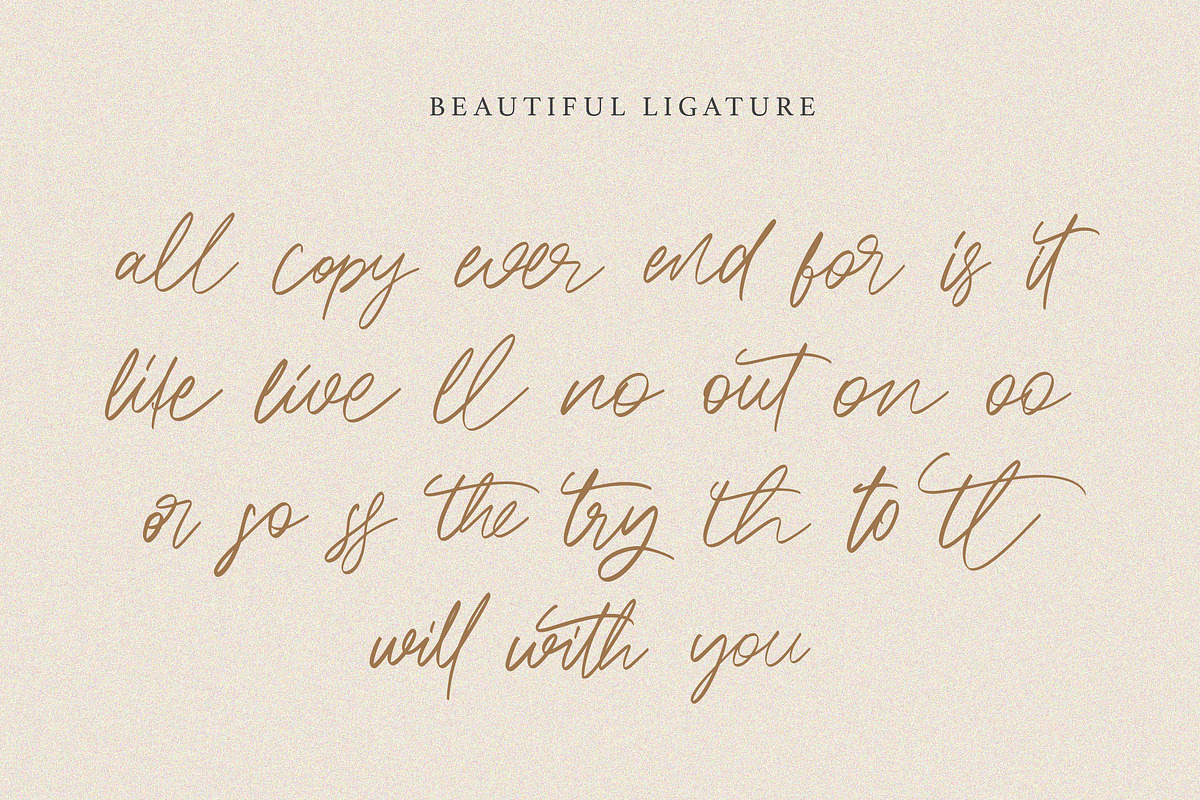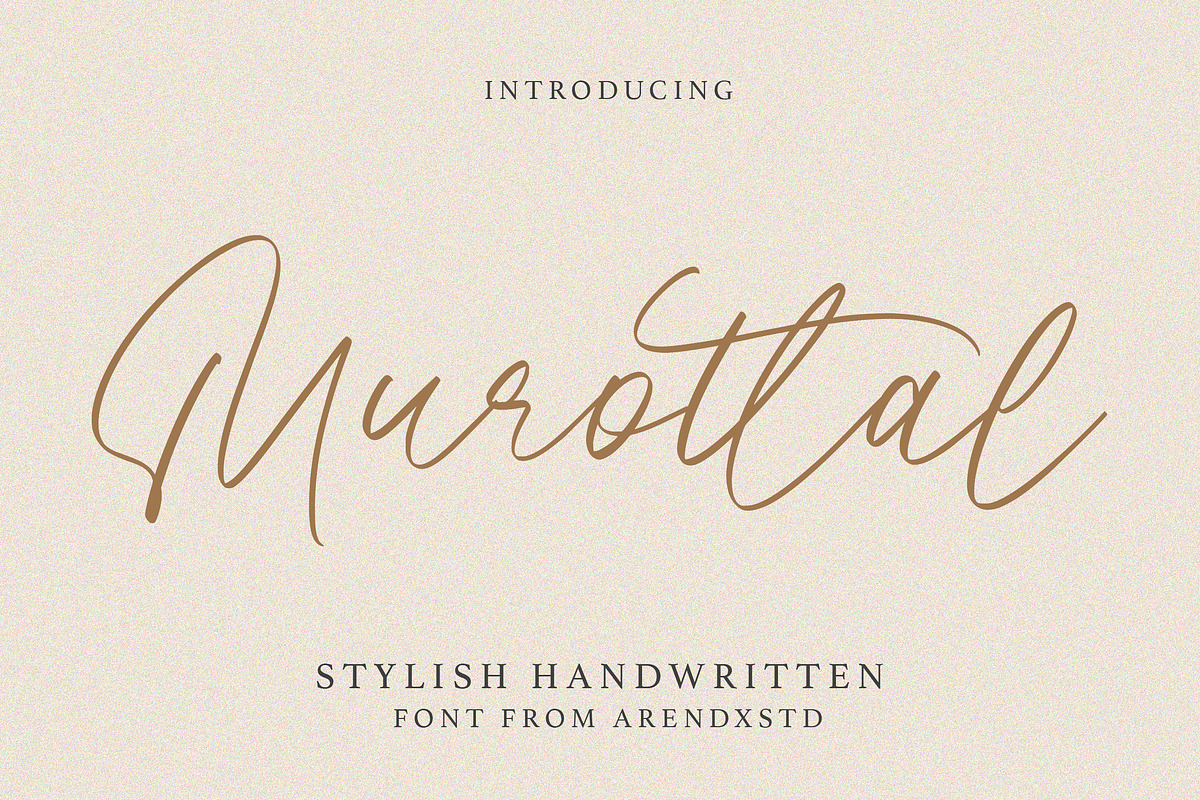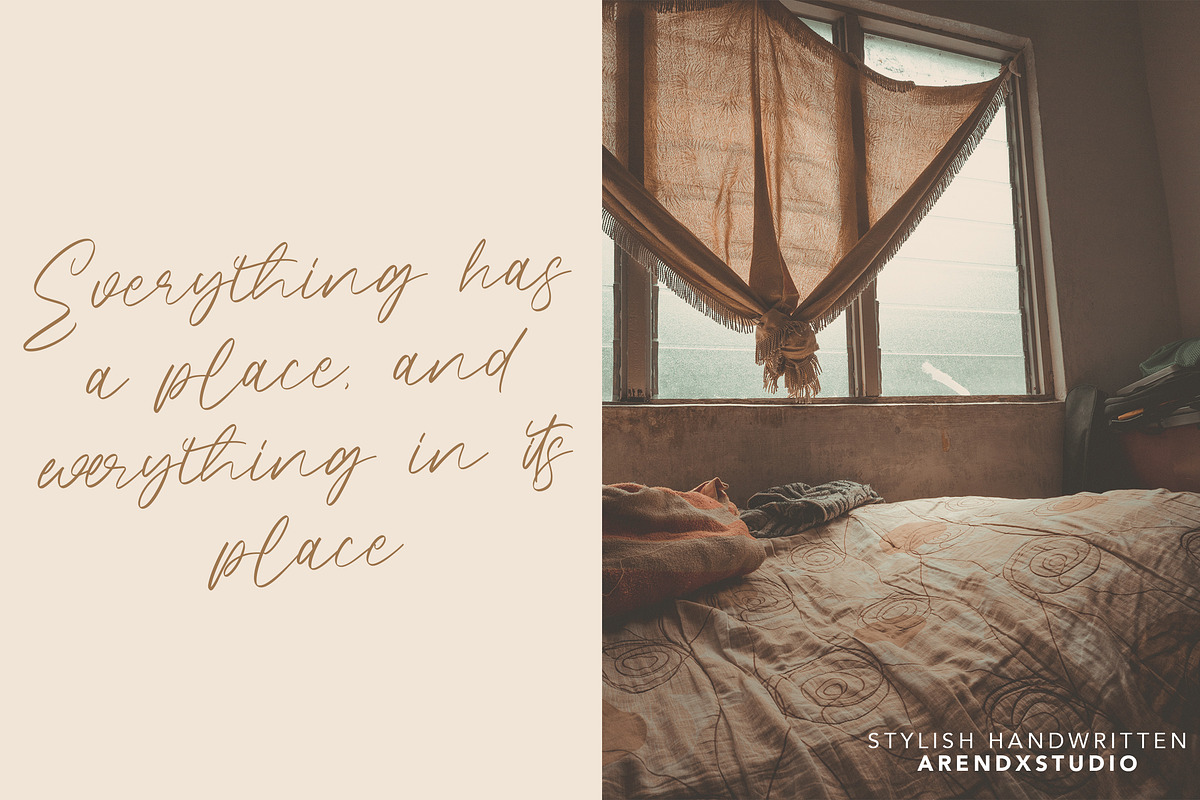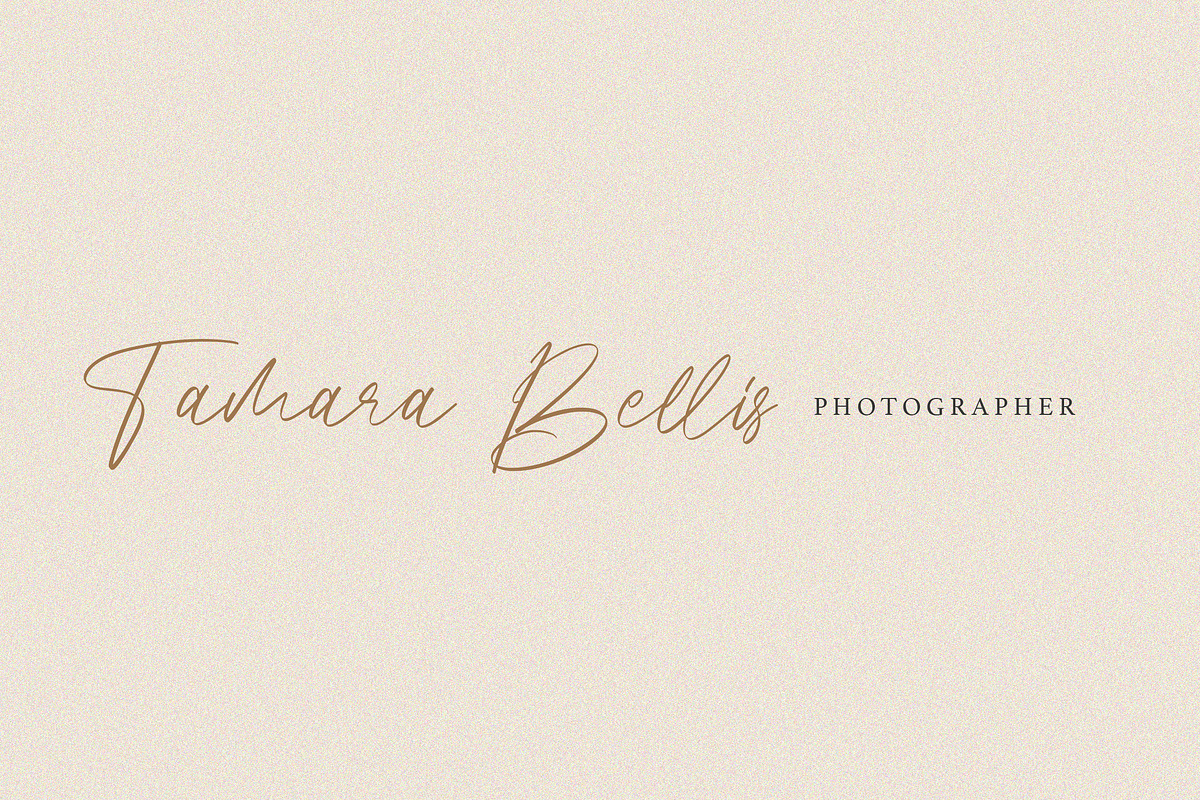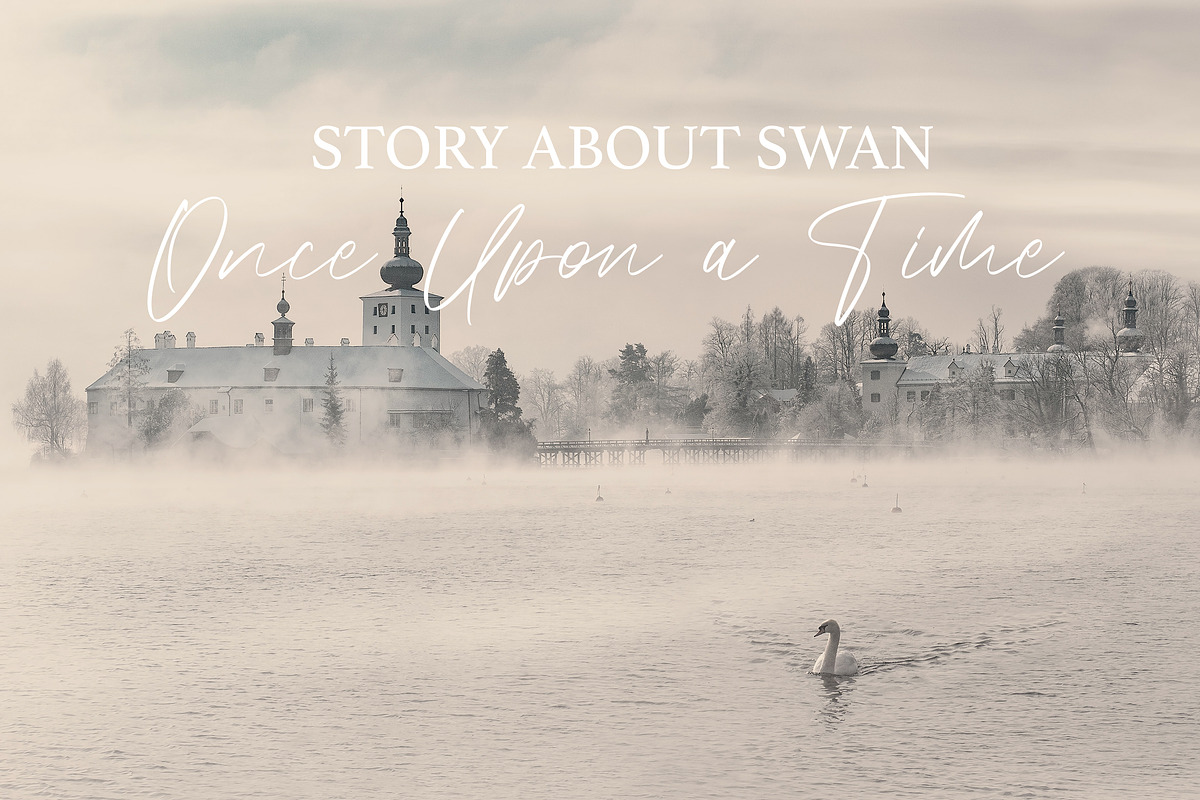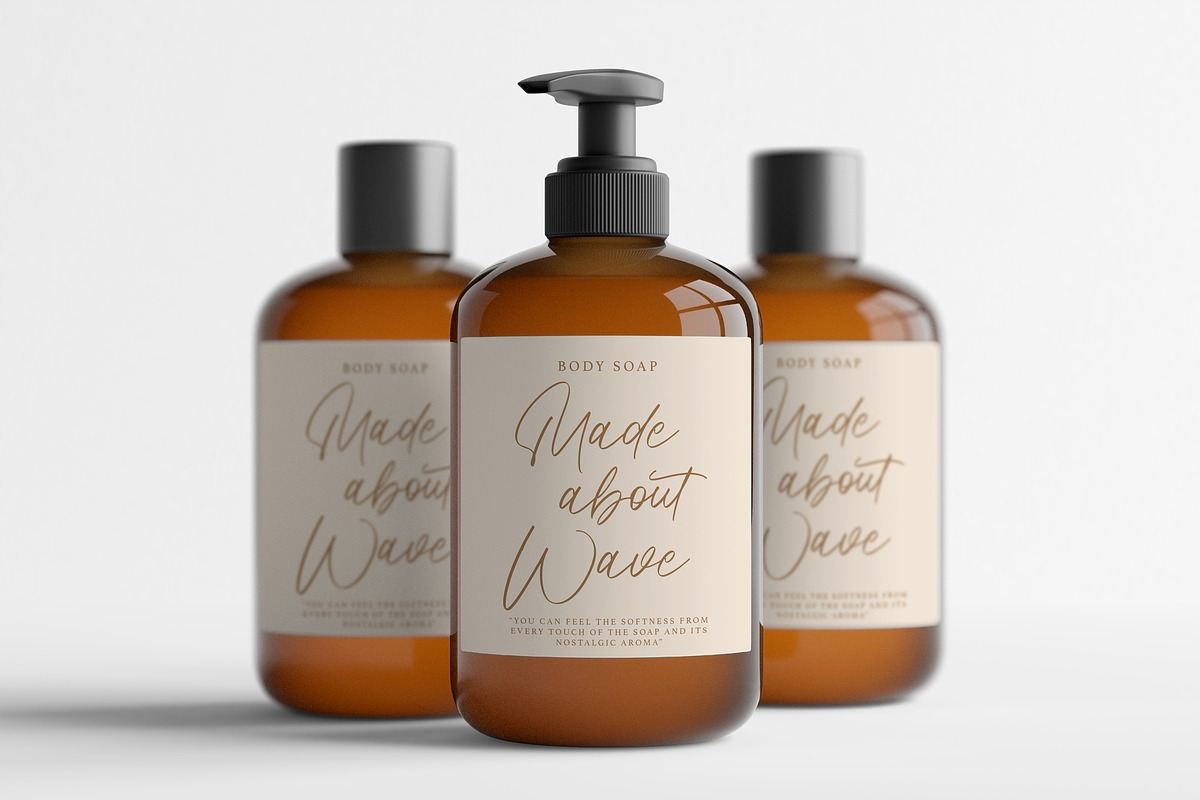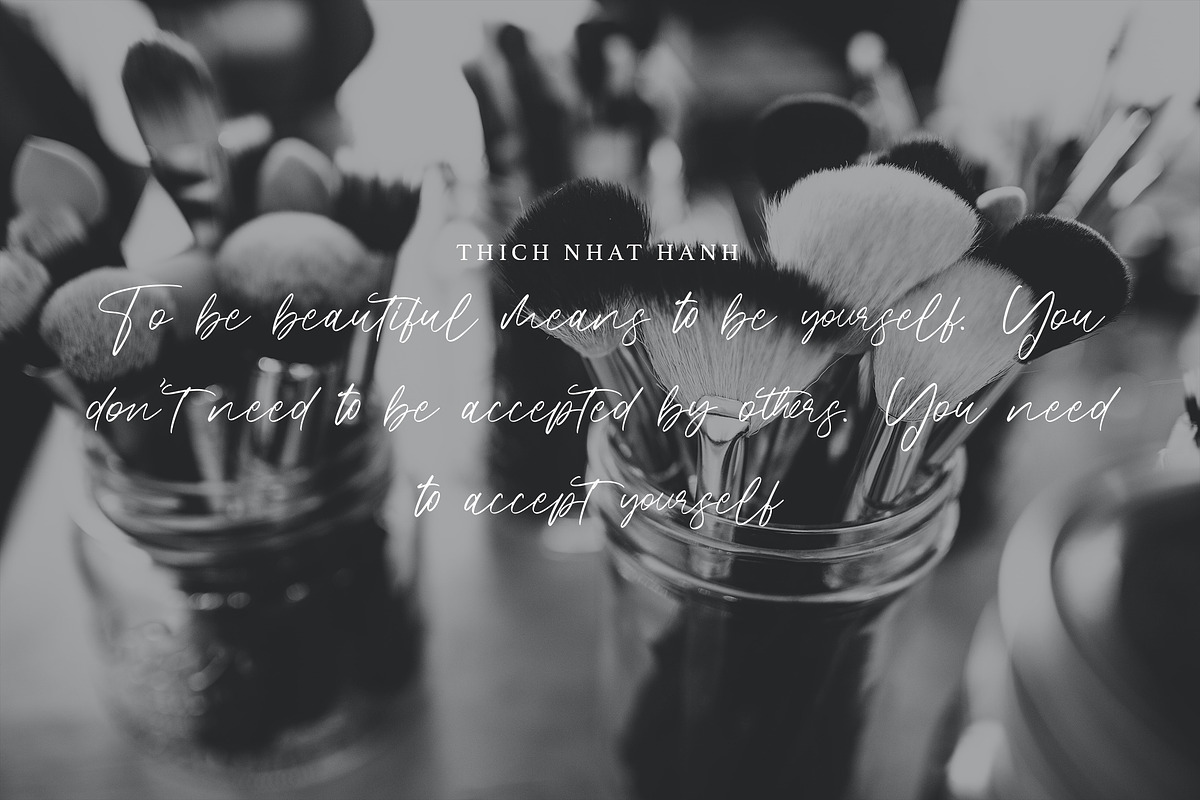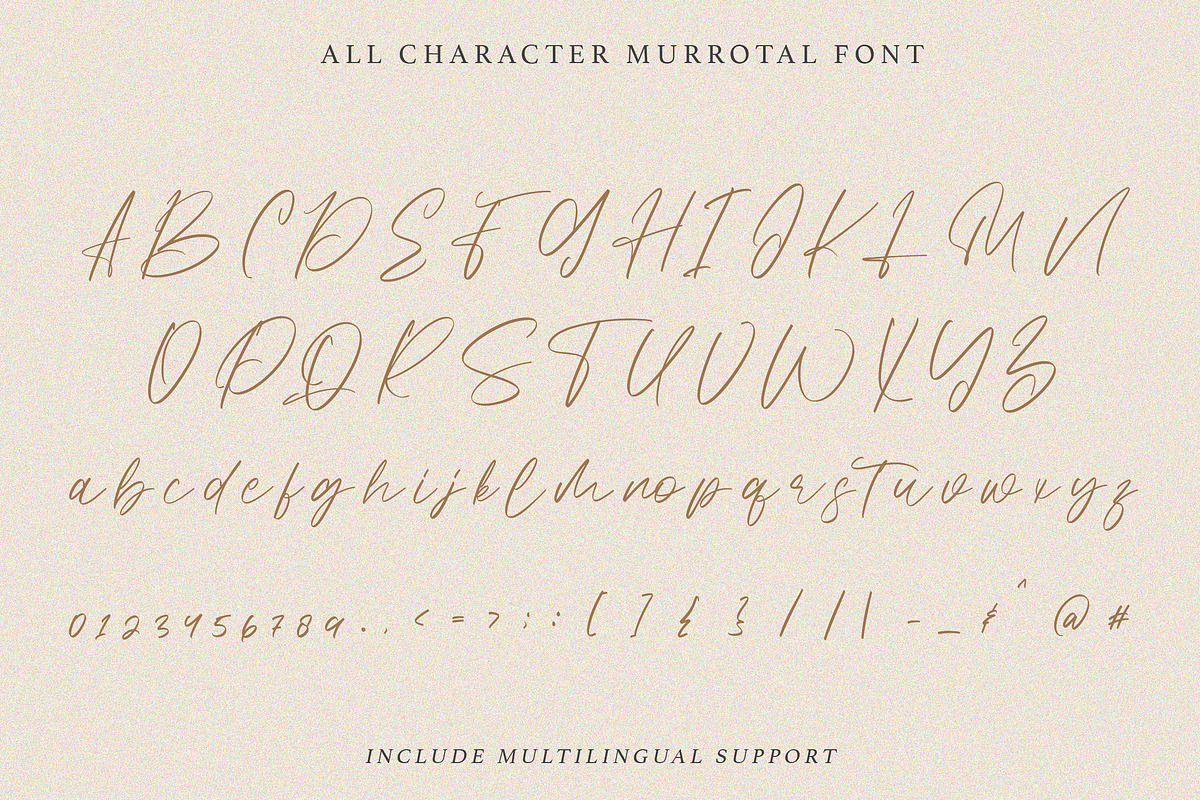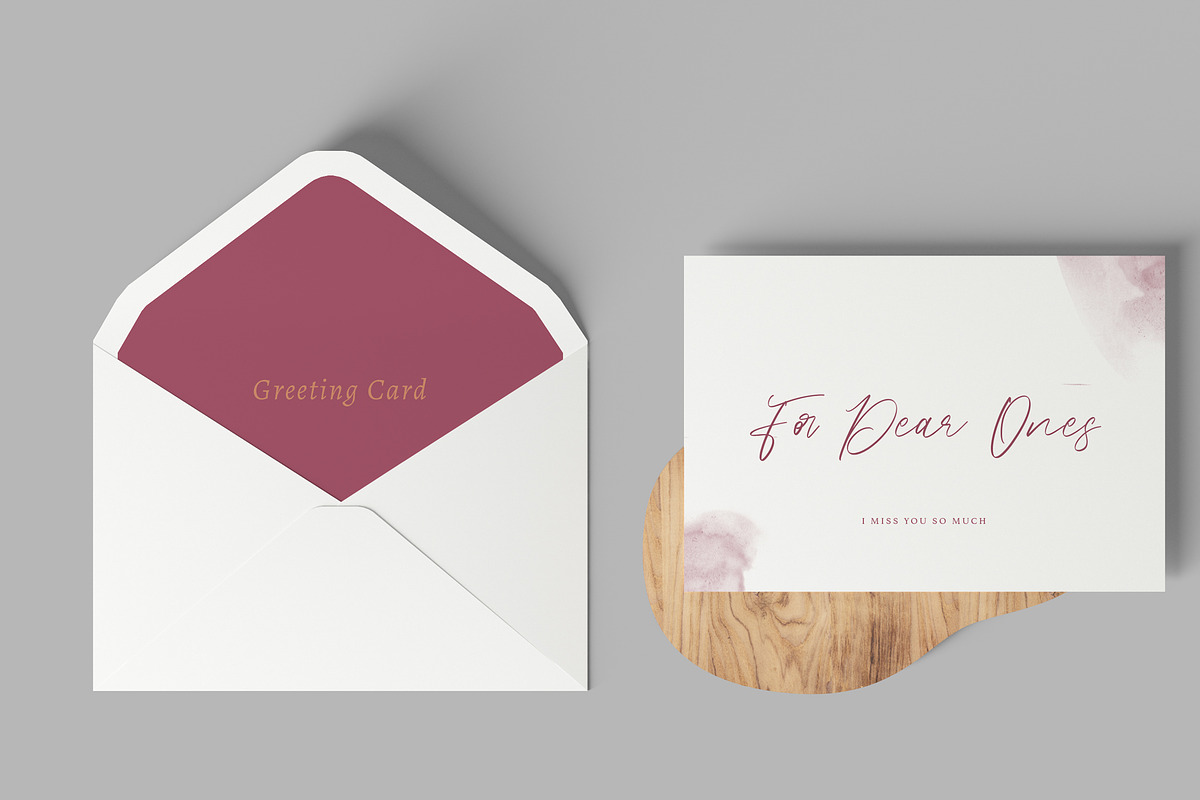
Murottal - Stylish Handwritten
Introducing a new font called Murottal Stylish Handwritten inspired by urban script fonts with sharp and beautiful letters that create fonts that are modern, tendy and elegant. Murottal came with opentype features such stylistic alternates, stylistic sets & ligatures good for logotype, poster, badge, book cover, tshirt design, packaging and any more.
Features : • Character Set A-Z • Numerals & Punctuations (OpenType Standard) • Accents (Multilingual characters) • Ligature • Alternate